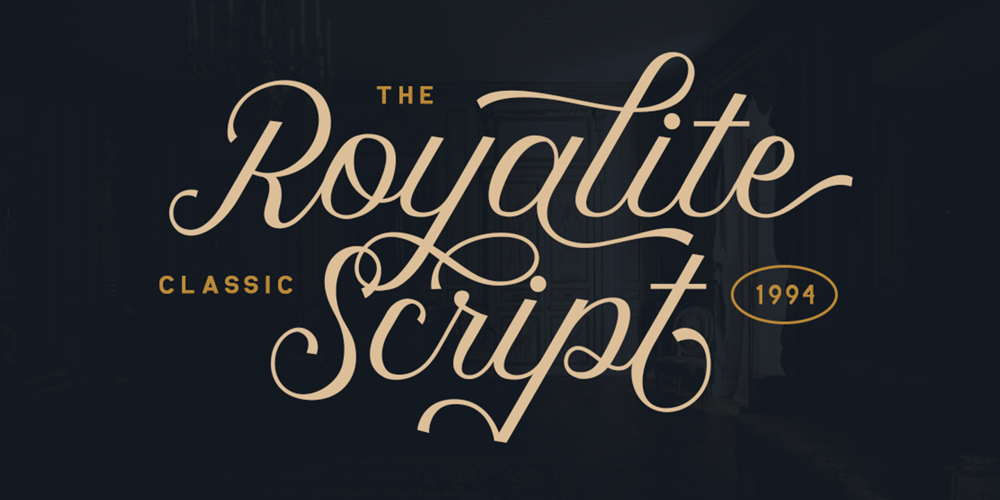
Royalite Font Family was designed by Sarid Ezra and published by Sarid Ezra. Royalite contains 3 styles and family package options. Royalite Script is classic script font that contain stylistic alternate, swash, etc to create your own customized signature. You can feel the elegant and luxury from this font. It’s time to try a new classic script. Use this font for your fashion brand now! Also Royalite support multi language. This font available in OTF and TTF. Also Support PUA.Royalite contain start and end swash that you can use only by activate opentype. You can try this feature with copy and paste to the font testing — -3royalite+3